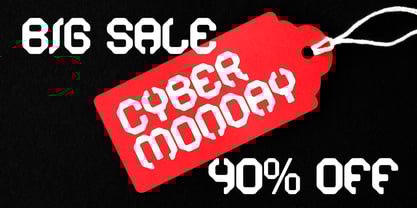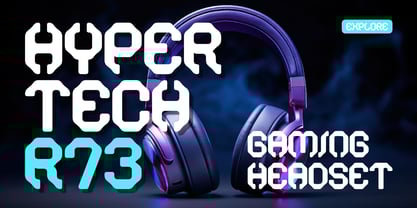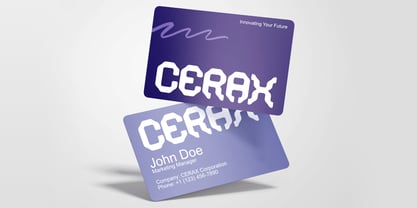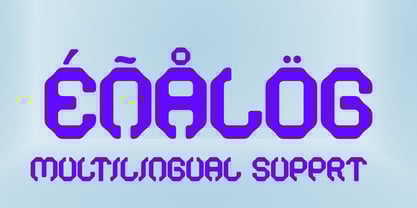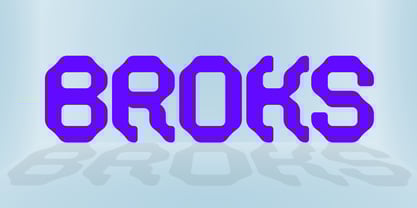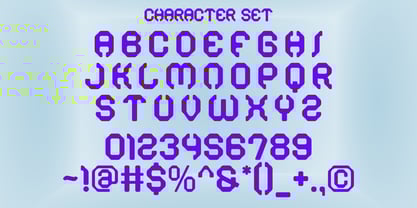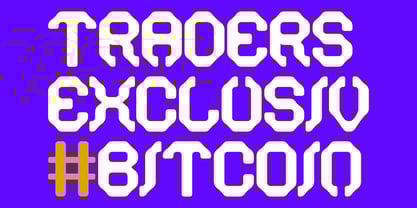
Broks
by Sealoung
The Broks Font Family was designed by Saiful Anwar and published by Sealoung. Broks contains 1 styles.
Introducing Broks Display, a state-of-the-art typeface created to enhance your brand identity. Designed with exceptional precision, every aspect of Broks is mathematically optimized to captivate your audience. Its versatility makes it perfect for corporate use and a wide array of projects, including branding, logos, titles, headlines, posters, digital advertisements, and more.
Broks offers a complete character set featuring uppercase letters, numbers, and punctuation.